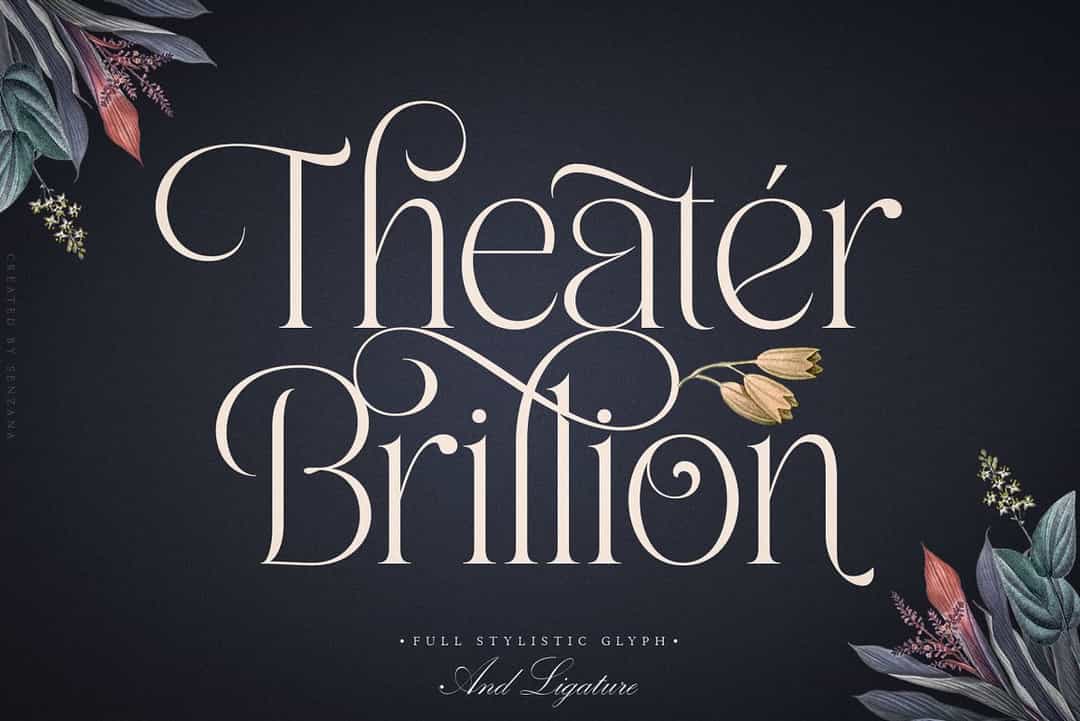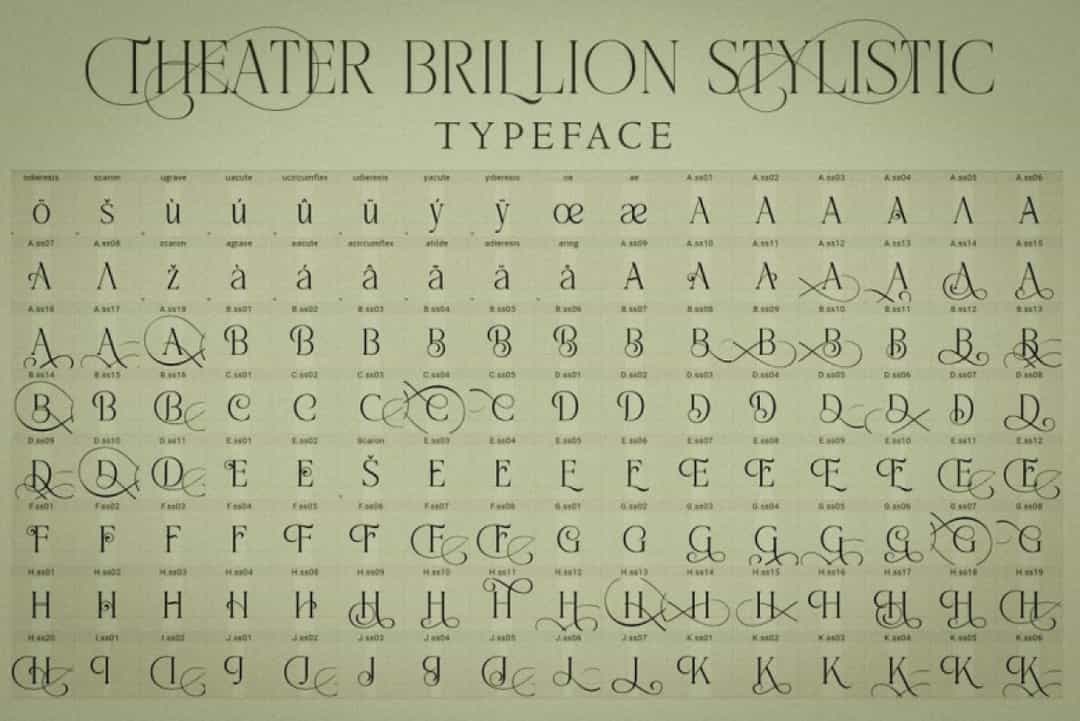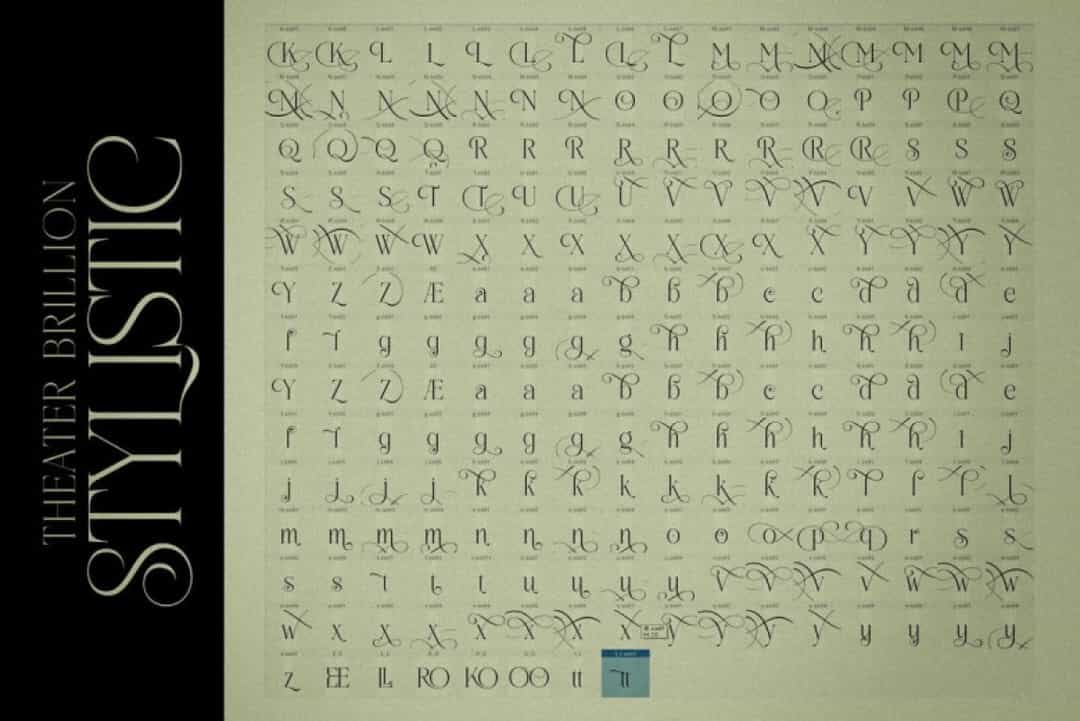
Hello all. As this is my inaugural visit here, I would like to present an exciting new product – Theater Brillion is elegant and classic in design, featuring 288 glyphs for maximum impact and beauty in your work. This elegant product can make it more appealing and attractive.